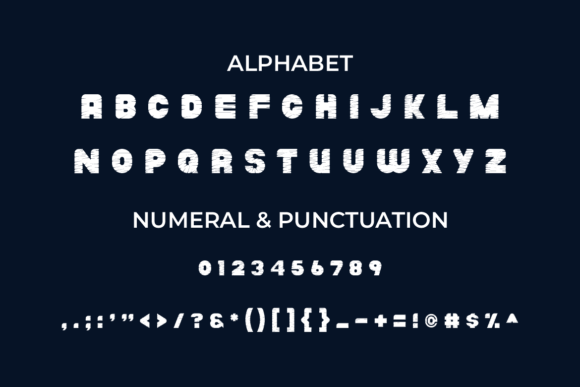
Dohler Font: Elevate Your Designs with a Cool and Quirky Display Font
Are you tired of using the same old fonts in your designs? Look no further than the Dohler Font, a cool and quirky display font that’s sure to take your creations to the next level. Whether you’re a designer, craftor, or simply someone who loves to dabble in typography, Dohler is an incredible asset to have in your font library.
The Unique Charm of Dohler Font
Dohler Font is a one-of-a-kind display font that’s perfect for adding a touch of personality to your designs. Its quirky and playful vibe makes it ideal for use in a variety of projects, from bold headlines and titles to creative posters and flyers. The font’s unique charm lies in its ability to add a dash of whimsy and fun to any design, making it perfect for designers who want to create something truly eye-catching.
Key Features of Dohler Font
- Cool and Quirky Design: Dohler Font boasts a unique and quirky design that’s sure to make your designs stand out from the crowd.
- Display Font: This font is specifically designed as a display font, making it perfect for use in headlines, titles, and other prominent text elements.
- Versatile: Despite its quirky design, Dohler Font is incredibly versatile and can be used in a wide range of projects, from posters and flyers to logos and branding materials.
- Easily Readable: Despite its bold and playful design, Dohler Font is surprisingly easy to read, making it perfect for use in a variety of contexts.
How to Use Dohler Font in Your Designs
So, how can you use Dohler Font to elevate your designs? Here are a few ideas to get you started:
- Headlines and Titles: Use Dohler Font to create bold and eye-catching headlines and titles that are sure to grab attention.
- Posters and Flyers: Add a touch of whimsy to your posters and flyers with Dohler Font, perfect for promoting events, products, or services.
- Logos and Branding: Use Dohler Font to create unique and memorable logos and branding materials that will help your business stand out.
- Social Media Graphics: Add a dash of personality to your social media graphics with Dohler Font, perfect for creating engaging and shareable content.
Why Designers and Craftors Love Dohler Font
So, why do designers and craftors love Dohler Font? Here are just a few reasons:
- Unique Design: Dohler Font offers a unique and refreshing design that’s sure to make your designs stand out.
In conclusion, Dohler Font is an incredible asset to have in your font library, offering a cool and quirky design that’s perfect for adding a touch of personality to your designs. Whether you’re a designer, craftor, or simply someone who loves typography, Dohler Font is sure to elevate your creations and help you stand out from the crowd.